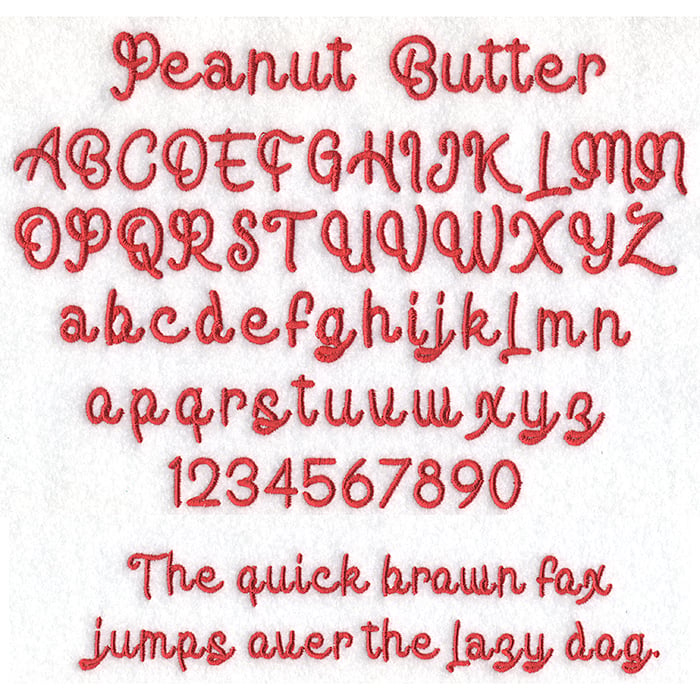
BX Native Embroidery Font: Peanut Butter
BX Native Embroidery Font: Resizable casual upright script embroidery font in native BX format.
Each character in this alphabet is individually manually digitized; we do not use a TrueType to Stitches conversion utility to create our fonts. Additionally, stitch attributes such as stitch type, density, compensation, and underlay are optimized for each size available. Choose the size closest to what you need. Shrinking the smallest size is not recommended.
Our fonts were manually digitized; we do not use a TrueType to Stitches conversion utility to create our fonts. Plus, stitch attributes such as density, compensation, and underlay are optimized for each size available.